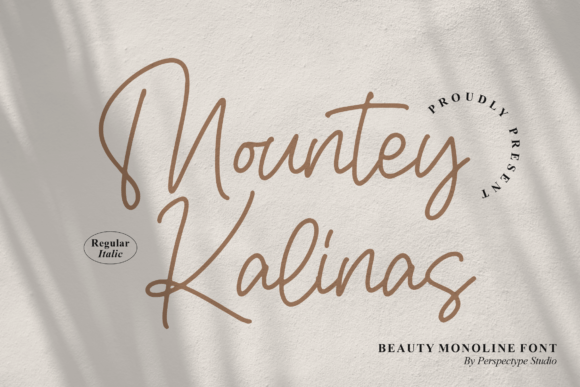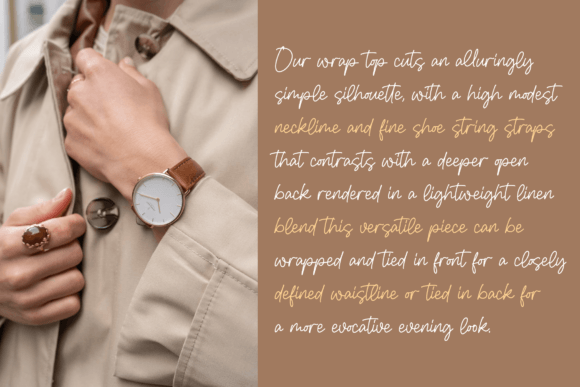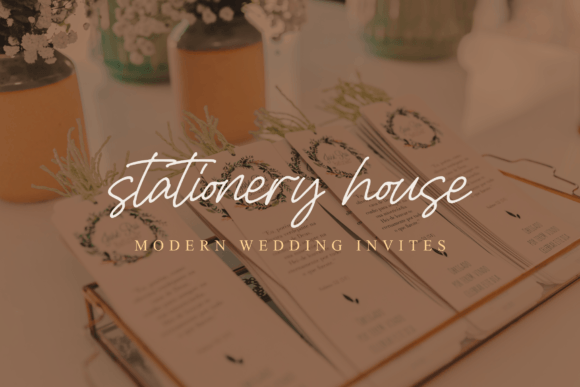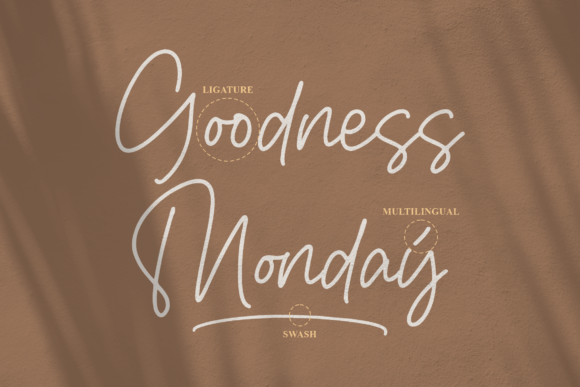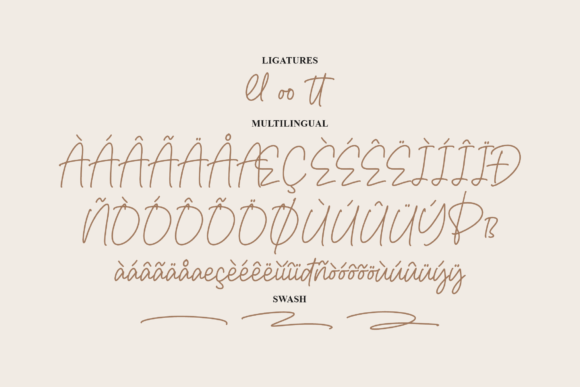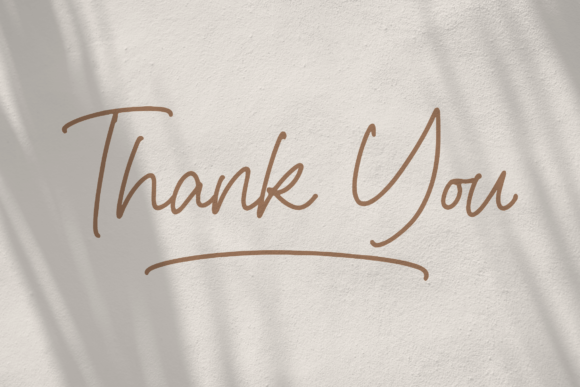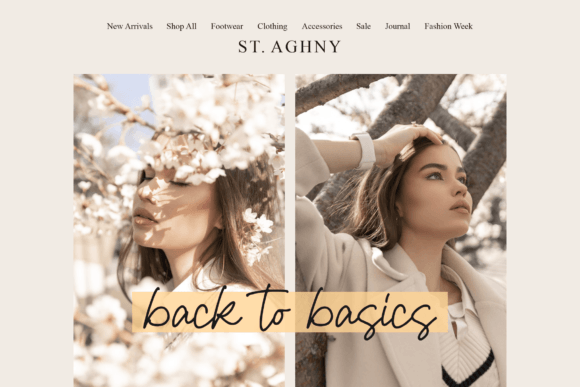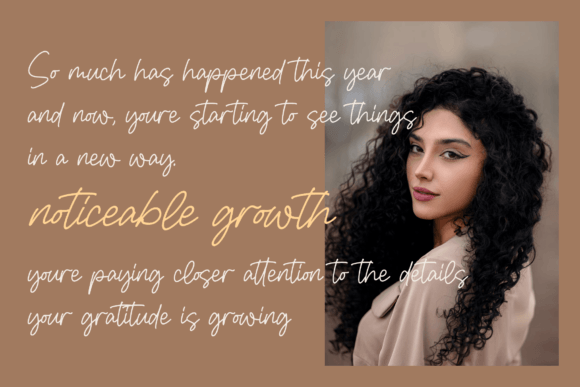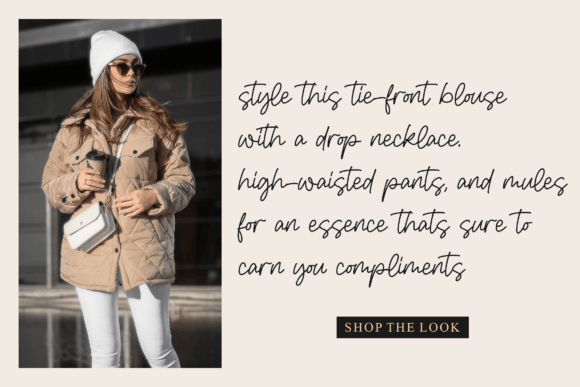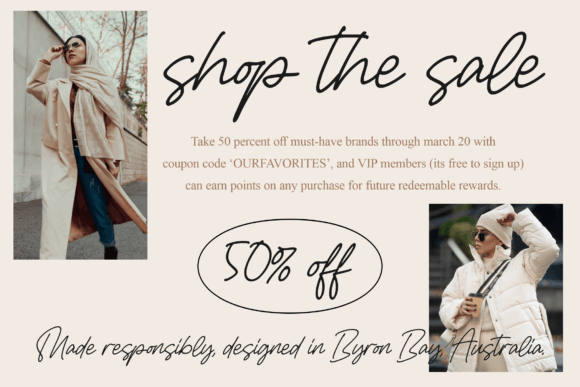
Mountey Kalinas Font
About Mountey Kalinas Font
Mountey Kalinas is an exclusive handwritten font that exudes a contemporary atmosphere with impeccable form. Striking the perfect balance between not too thin and not too thick, this font offers a harmonious and varied appearance, designed to enhance the beauty of your projects. With its distinctive style, Mountey Kalinas is particularly well-suited for writing wedding invitations, cards, or any design that requires a romantic and personalized touch.
The contemporary and exclusive nature of Mountey Kalinas makes it a standout choice for projects where a touch of elegance is essential. The font’s varied and balanced strokes contribute to its versatility, allowing it to adapt seamlessly to different design contexts, from formal wedding invitations to creative cards.
Mountey Kalinas is not just a font; it’s a design asset crafted to bring a personalized and romantic touch to your projects. Its handwritten charm adds authenticity, making it ideal for conveying emotions and creating a connection with your audience.
The PUA encoding of Mountey Kalinas is a valuable feature, providing easy access to a variety of amazing glyphs and ligatures. This feature enhances the font’s versatility, enabling you to customize and personalize your designs effortlessly. Whether you want to add decorative elements or unique flourishes, Mountey Kalinas empowers you with creative freedom.
In summary, Mountey Kalinas is a font designed for those who seek exclusivity and contemporary elegance. Whether you’re working on wedding invitations, cards, or any other project that requires a romantic and personalized touch, let Mountey Kalinas be the font that elevates your designs with its distinctive style and PUA encoded capabilities.